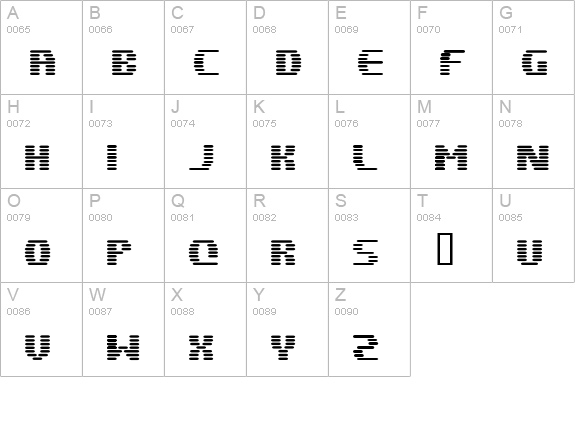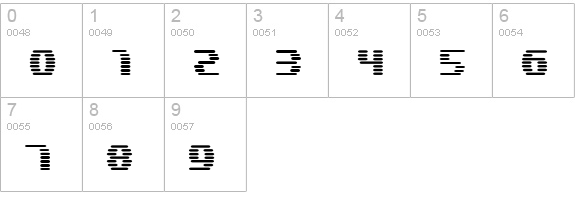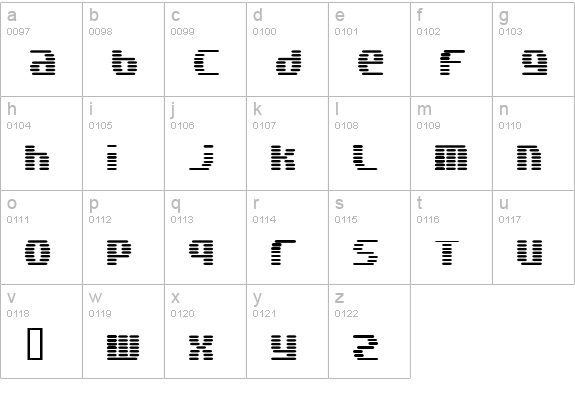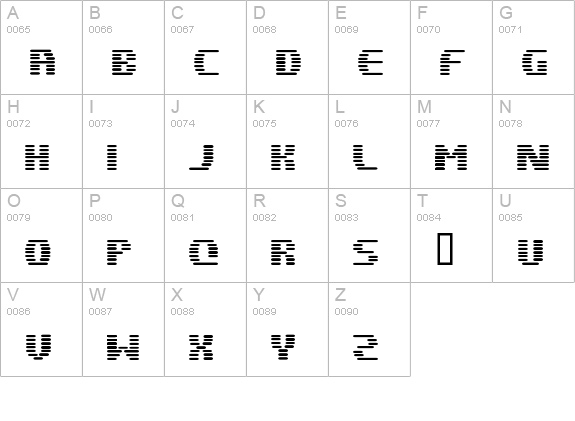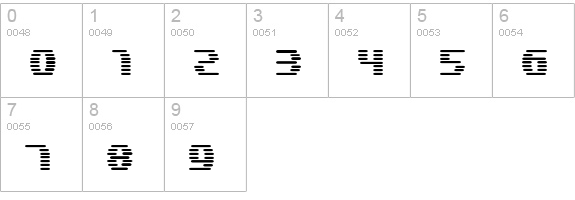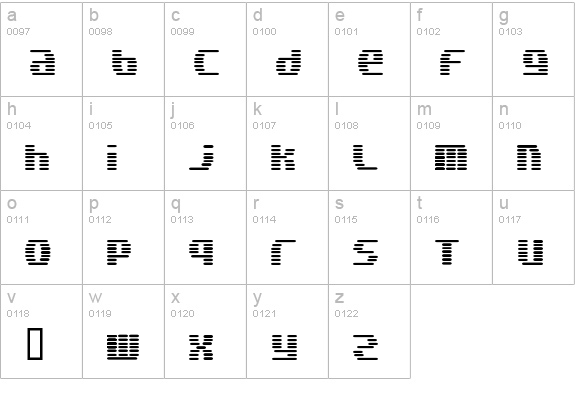
LASERDIVER Font Details
The LASERDIVER font is a stunning display font that offers a perfect blend of futuristic style and retro vibes. With its sleek and sharp edges, this font captures the essence of modern design, making it a perfect choice for various creative projects. The LASERDIVER font features unique letterforms that are inspired by the captivating world of lasers and cutting-edge technology. Its bold and distinct characters make a bold statement, instantly drawing attention and adding a touch of sophistication to any design. What sets the LASERDIVER font apart is not just its remarkable aesthetics but also its accessibility. This font is freely available to download at FontsMarket.com, allowing designers and enthusiasts to incorporate it into their projects without any limitations. Whether you are working on a personal project or a commercial endeavor, the LASERDIVER font is at your disposal, ready to elevate your designs to new heights. With its versatility and wide range of possible applications, the LASERDIVER font is a go-to choice for graphic designers, web developers, branding experts, and anyone seeking a font that exudes modernity and creativity. From logo design and packaging to posters and website headers, this font adds a touch of excitement and originality to any composition. The LASERDIVER font is truly a game-changer, offering a fresh perspective on typography and unleashing endless possibilities for creative expression. Its clean and futuristic look, combined with its freely available availability at FontsMarket.com, makes it an essential addition to any font library. Download the LASERDIVER font today and embark on a visual journey that will captivate and inspire.